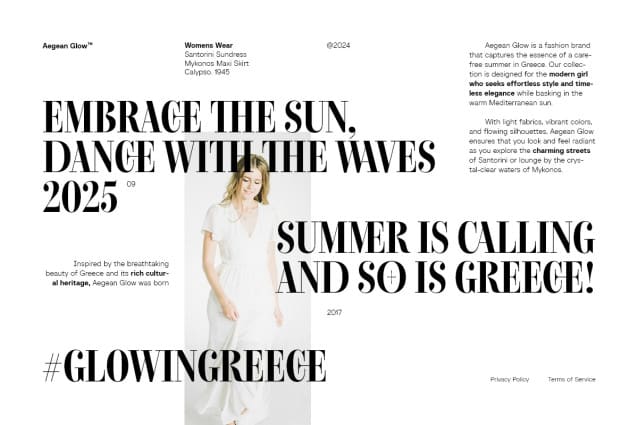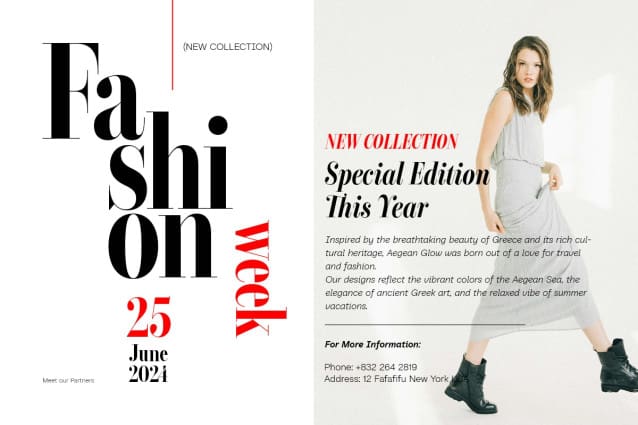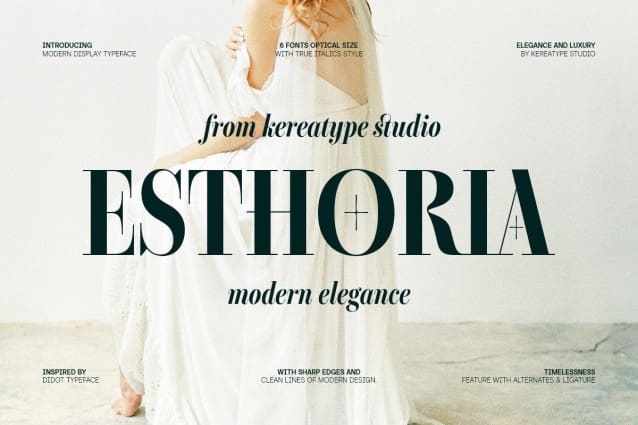
Esthoria Font Family
Esthoria Font Family is a high-contrast serif font family that merges timeless elegance with modern minimalism. Inspired by Didot and Bodoni, it comes optical choice in 6 sophisticated styles, each with a true italic option, making it perfect for headlines, logos, and editorial designs.
With sharp edges, clean lines, and a condensed form, Esthoria Font is designed to make a bold impact while maintaining a refined aesthetic. Its versatility shines in both classic and contemporary settings, whether you’re designing for magazines, advertisements, or luxury branding.
Complete with swashes, multilingual support, PUA encoding, and a variety of alternates and ligatures, Esthoria offers endless creative possibilities. Elevate your projects with a font that embodies elegance, sophistication, and timeless style.